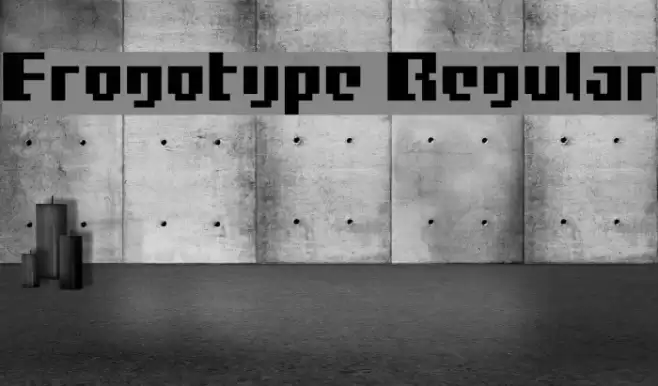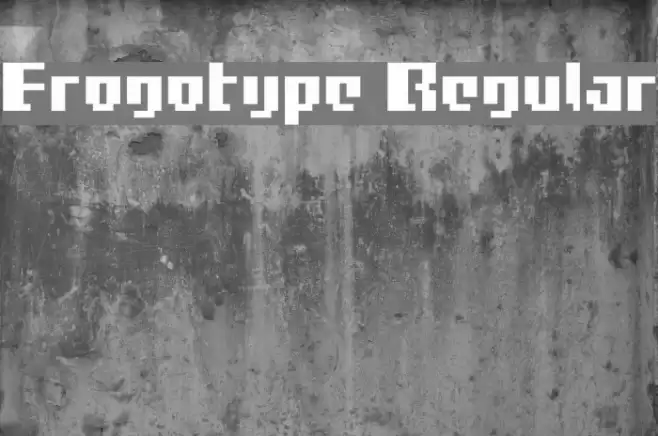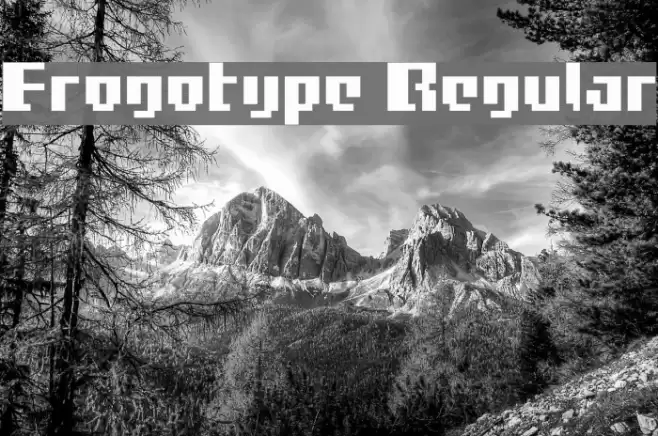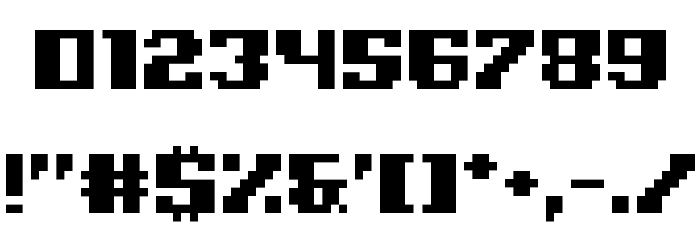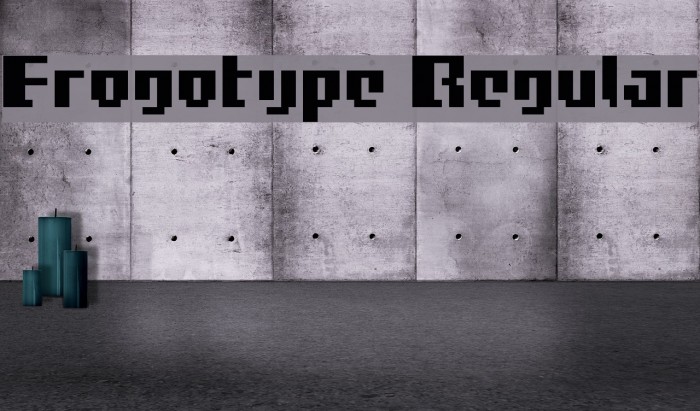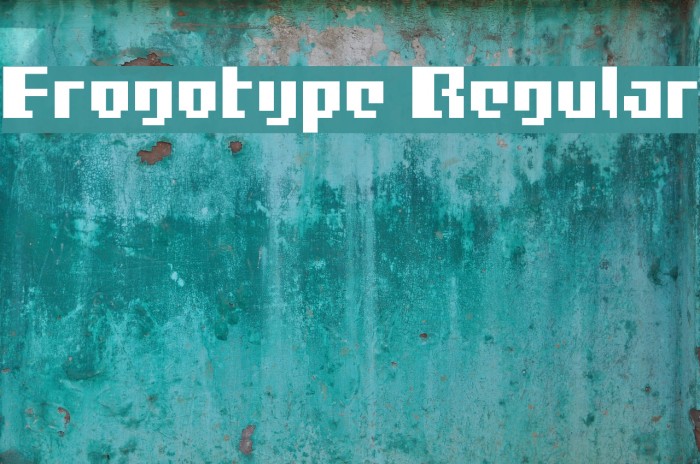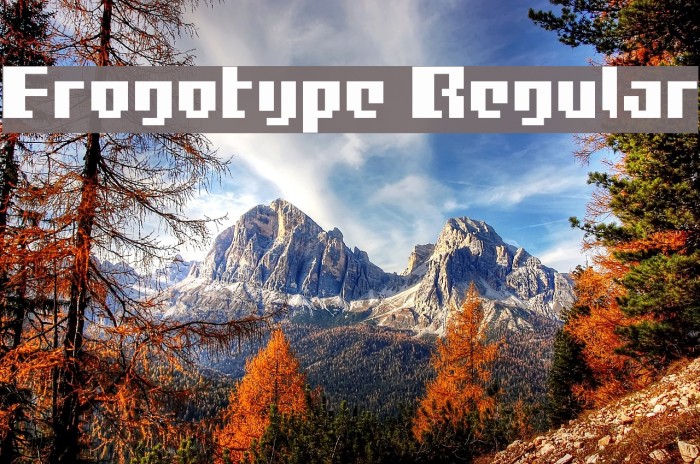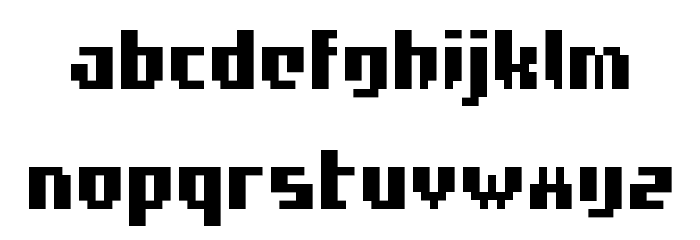
Frogotype Regular Font
Frogotype Regular Description
This font features a bold, pixelated design reminiscent of early digital or video game aesthetics. Each character is constructed with a blocky, grid-like structure, giving it a retro, 8-bit appearance. The uppercase and lowercase letters maintain a consistent height, contributing to a uniform look. Numbers and special characters follow the same pixelated style, ensuring visual coherence across all glyphs. The font's distinct, chunky form makes it highly legible at larger sizes, ideal for capturing attention.
A bold, pixelated font with a retro, 8-bit style from Uncategorized fonts.
- Proposed Projects: Perfect for video game graphics, retro-themed posters, digital art projects, and any design requiring a nostalgic, digital look.
- Overall Style: Retro